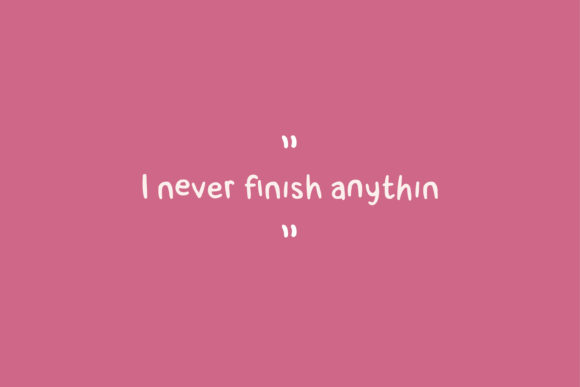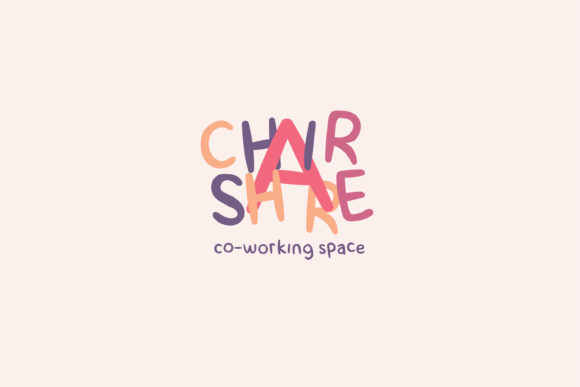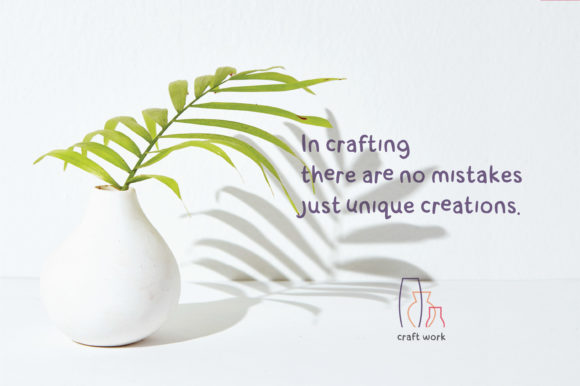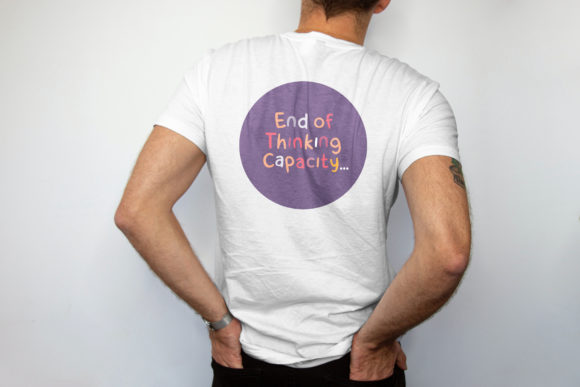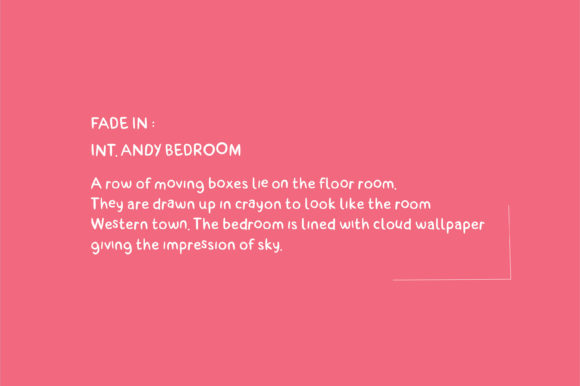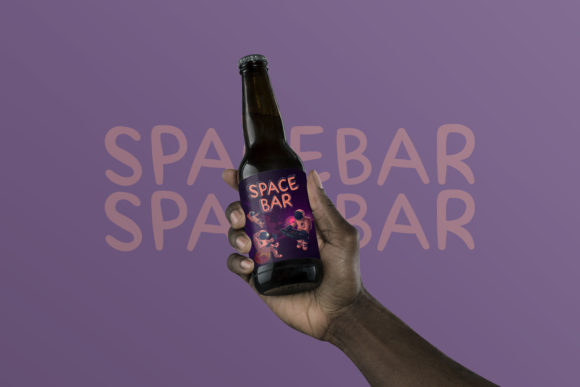
Introduction to Emillio Font
Emillio embodies fun, quirkiness and authenticity.
It is perfect for adding a relaxed style to your designs Use it for logos, greeting cards, flyers, posters and much more.
Key Features of Emillio Font
Why Choose Emillio Font?